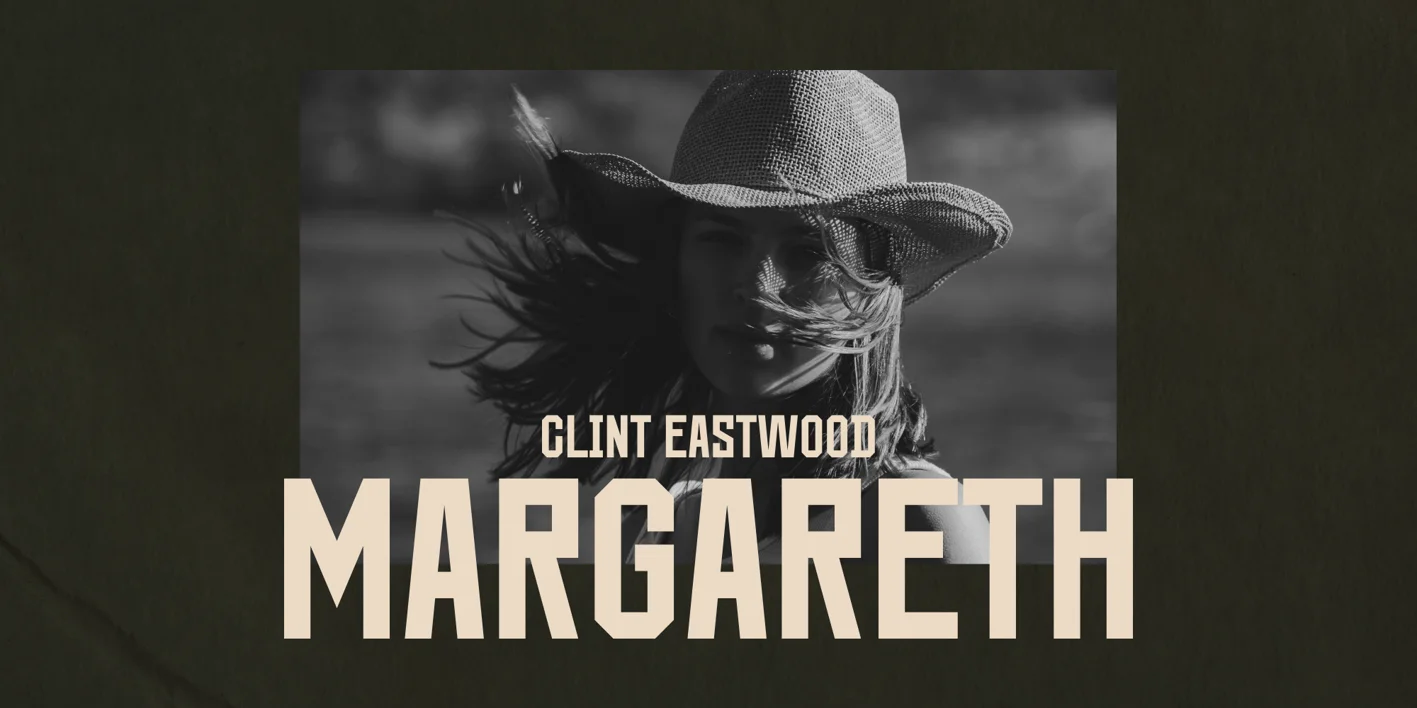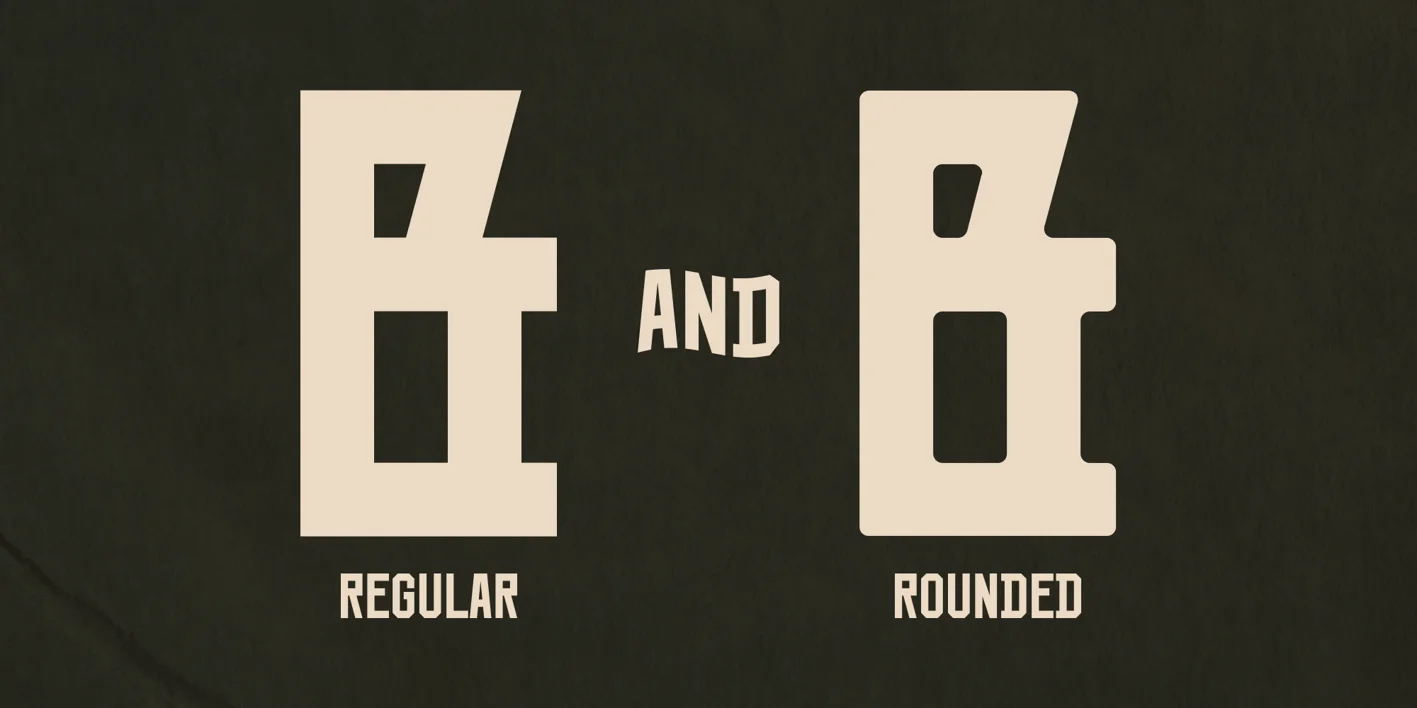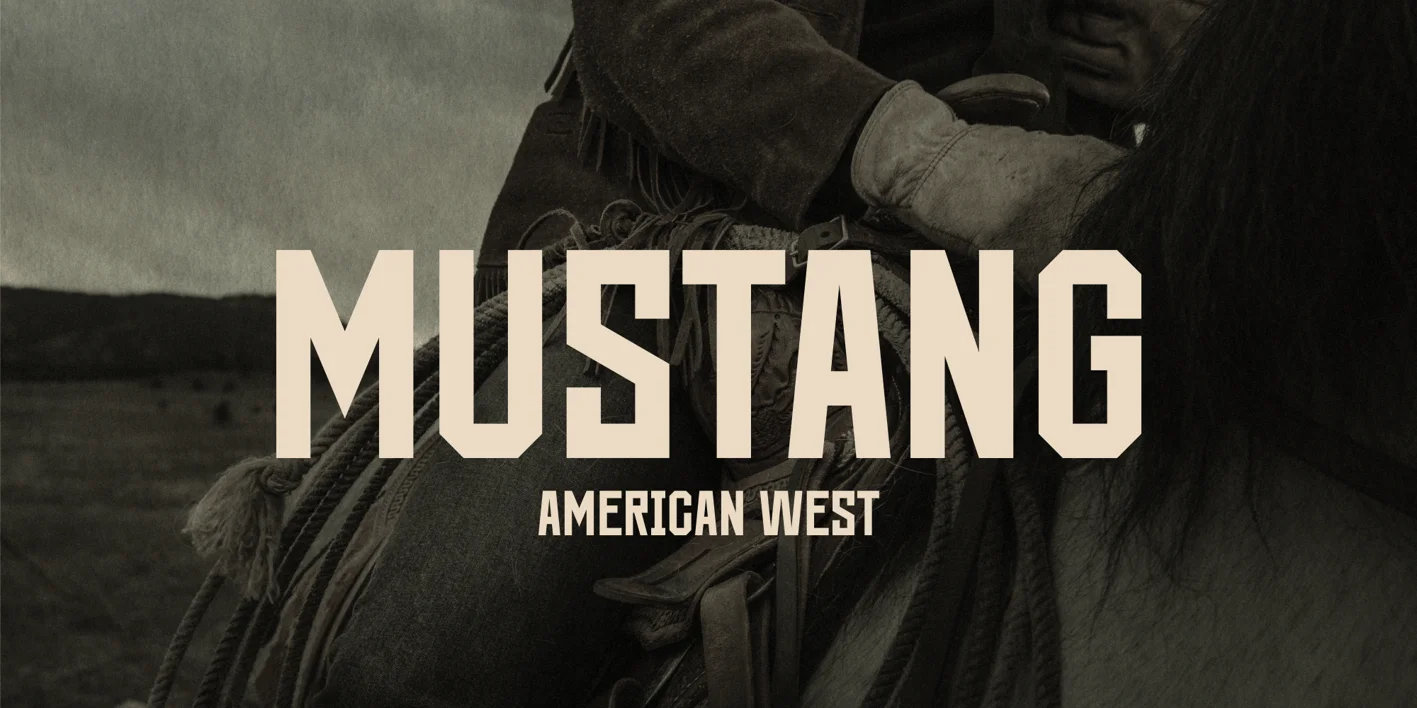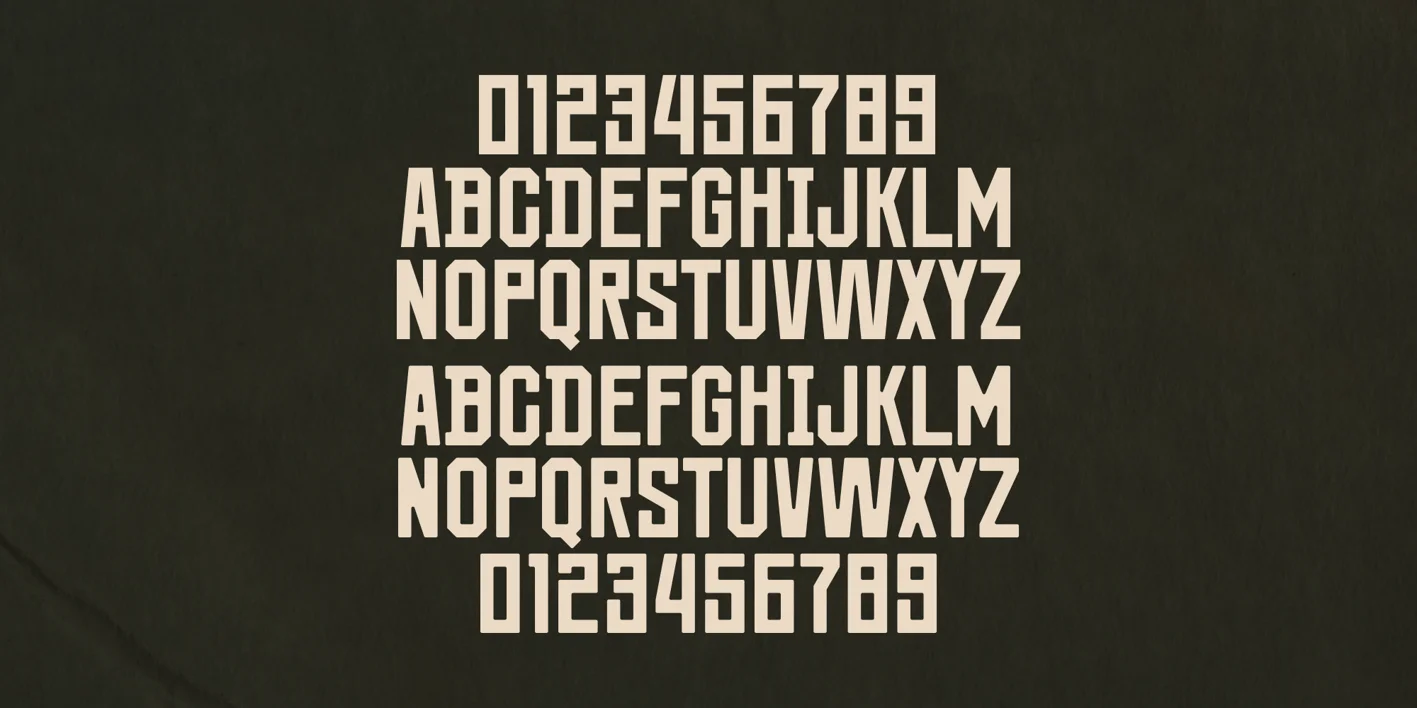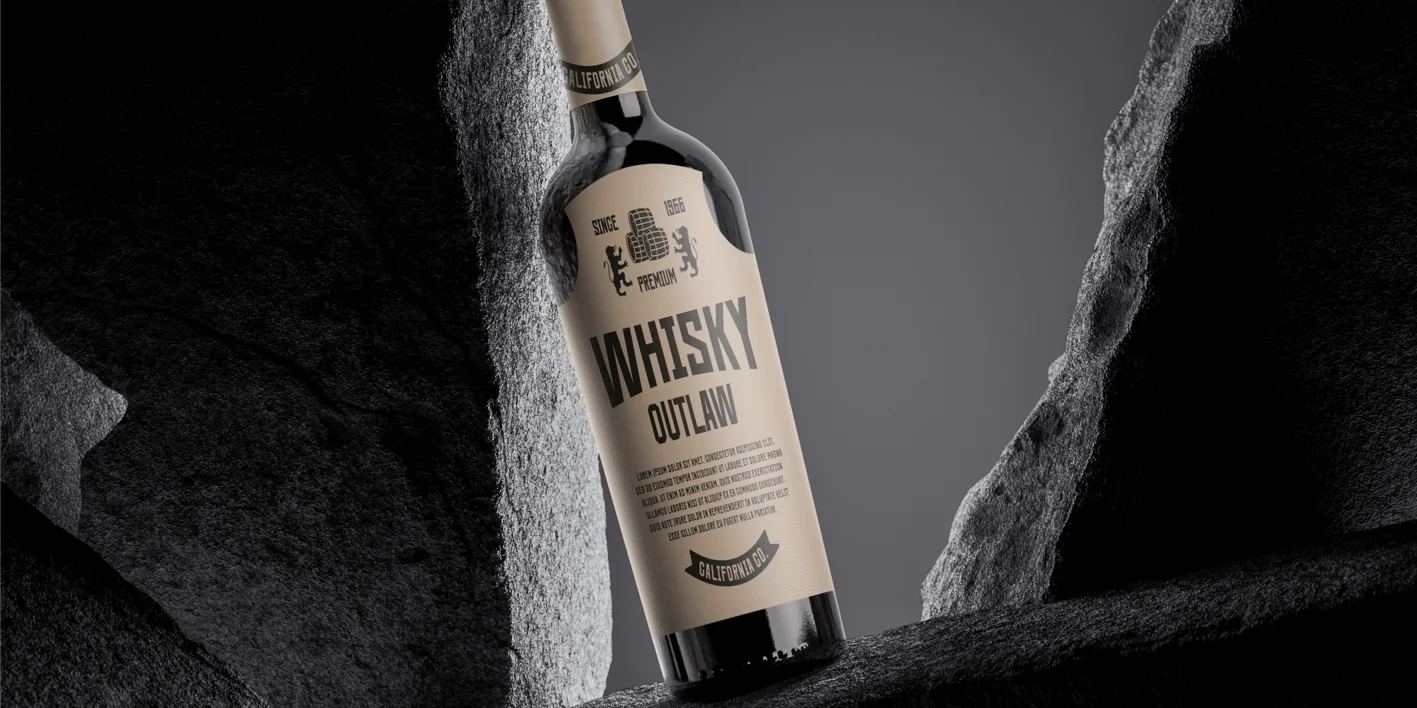
Dutch Morgan Font
There is a particular satisfaction in finding a typeface that delivers consistent type colour across continuous text without compromise. Dutch Morgan consistently provides it. The typeface brings a versatile sensibility to a broad range of creative disciplines, with refined proportions and careful stroke modulation that holds up whether the work is print-first or screen-first.
In practice, Dutch Morgan proves particularly effective for editorial layouts, environmental graphics, advertising campaigns, product labels, packaging design. Designers reaching for it find that the type decisions feel resolved rather than laboured — a useful quality when client timelines are tight.
The range of applications extends to web design, signage systems, social media graphics, brand identity systems. That breadth is deliberate: the proportions and spacing were stress-tested across a wide range of mock briefs before the typeface was finalised.
Dutch Morgan sits comfortably alongside both classic and contemporary typefaces in multi-font hierarchies. It takes direction rather than competing for attention — a quality that experienced designers know is harder to find than it appears.
UX designers establishing typographic systems for digital products find Dutch Morgan a reliable choice for projects that demand both personality and restraint. The design avoids the self-conscious quirkiness that dates quickly, settling instead for considered distinctiveness that holds up over time.